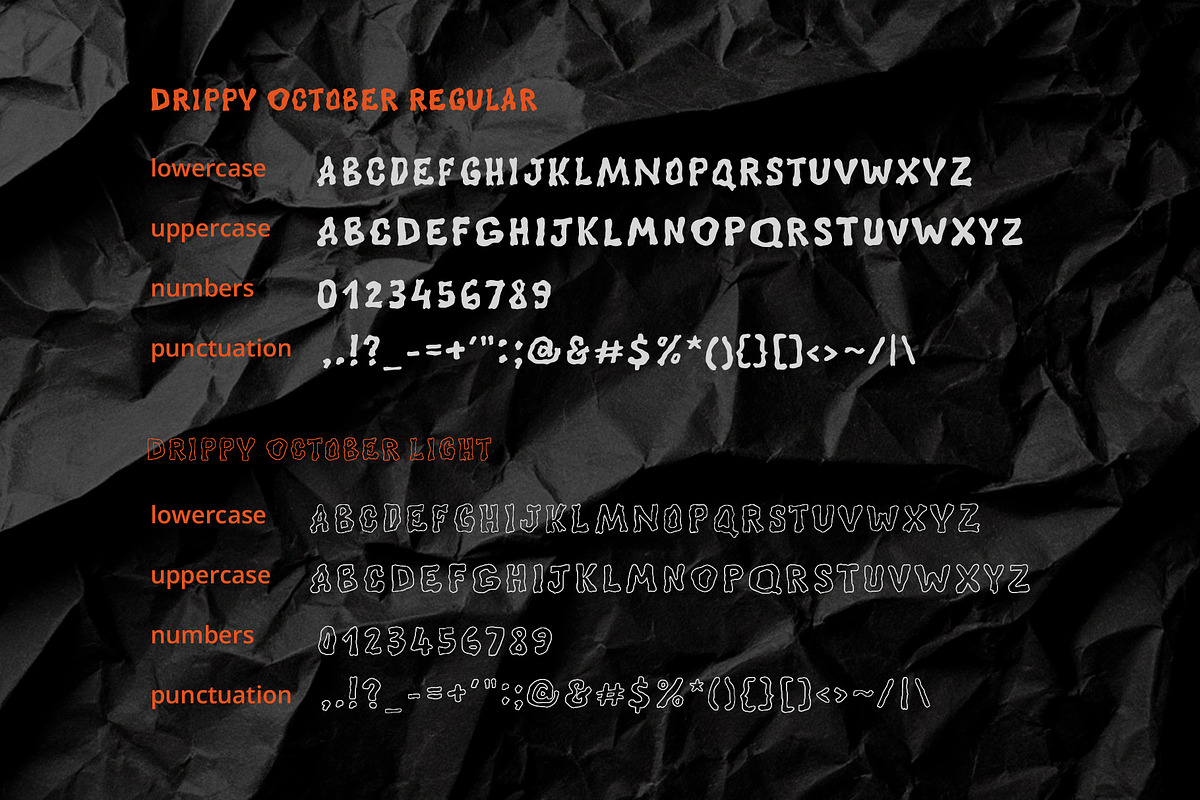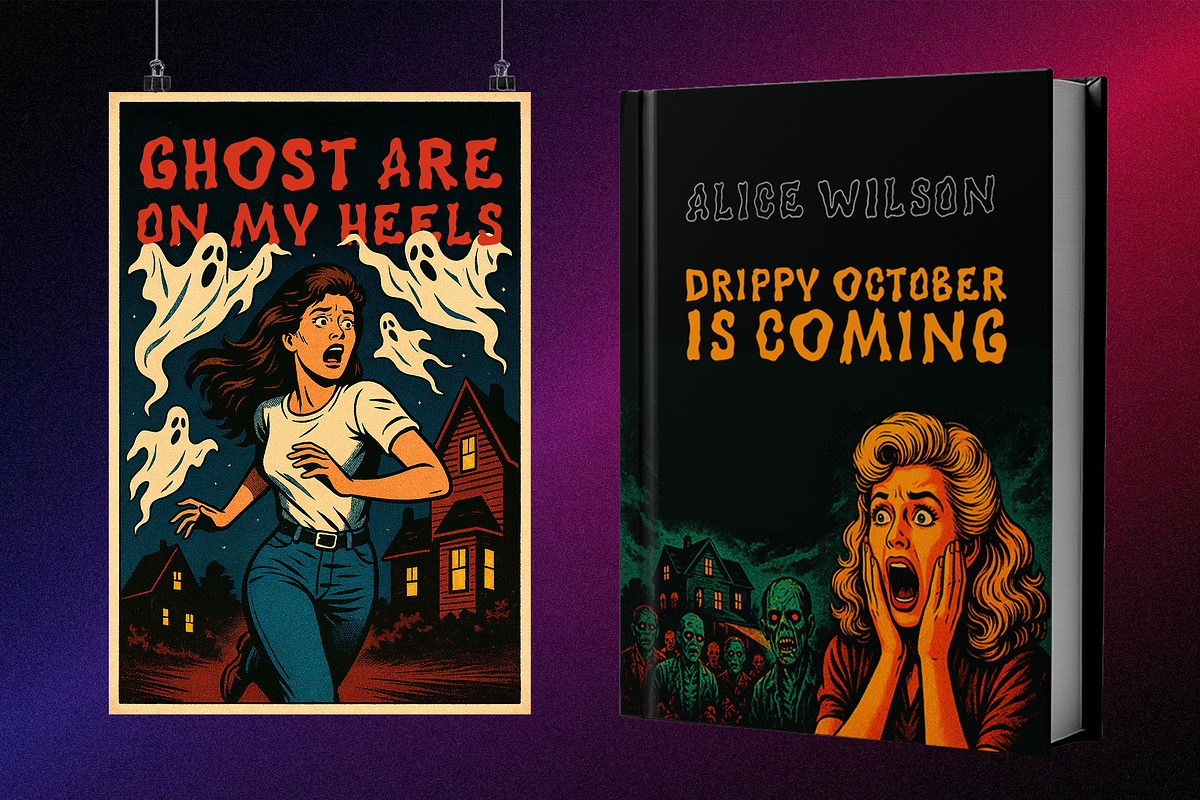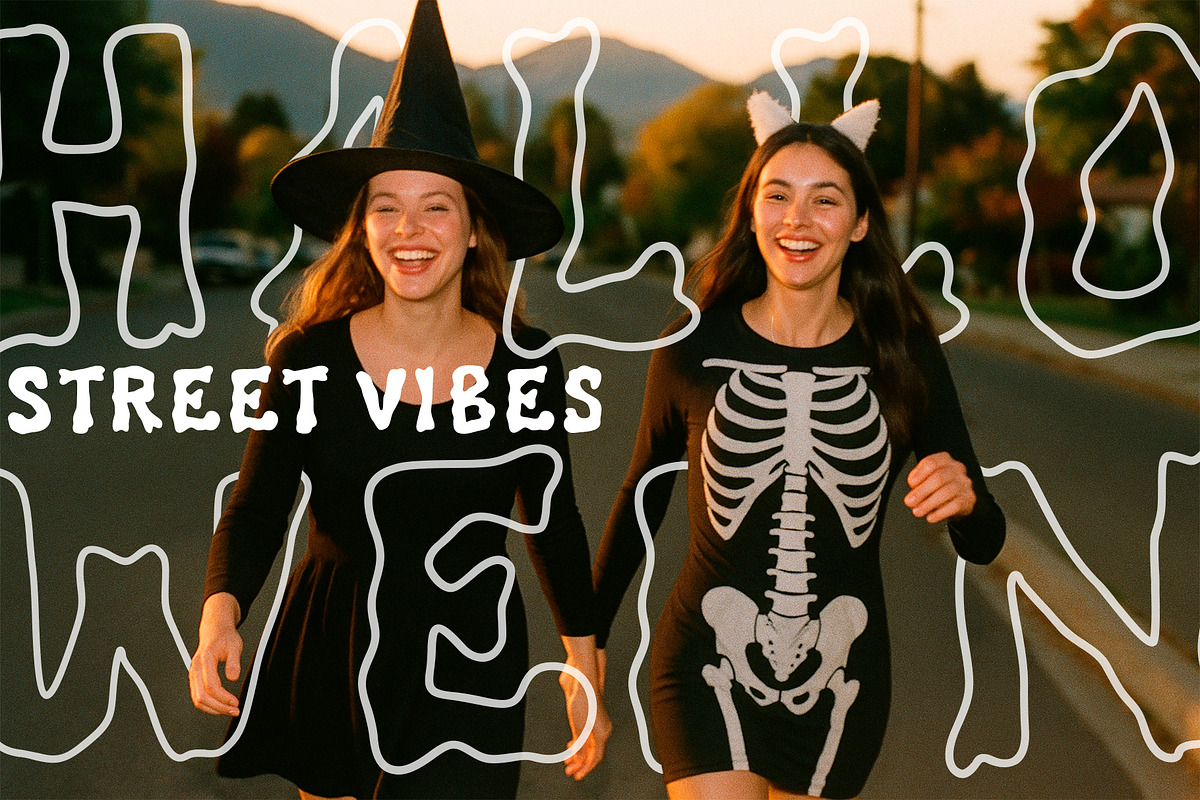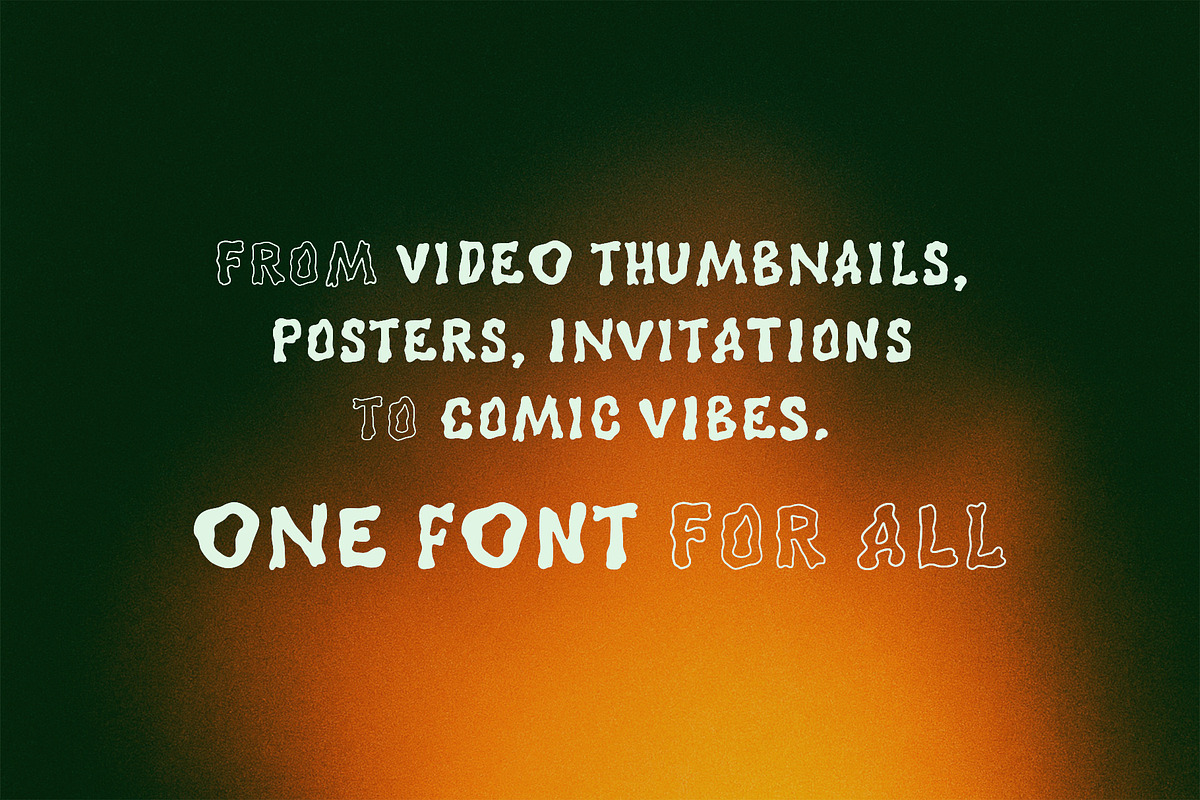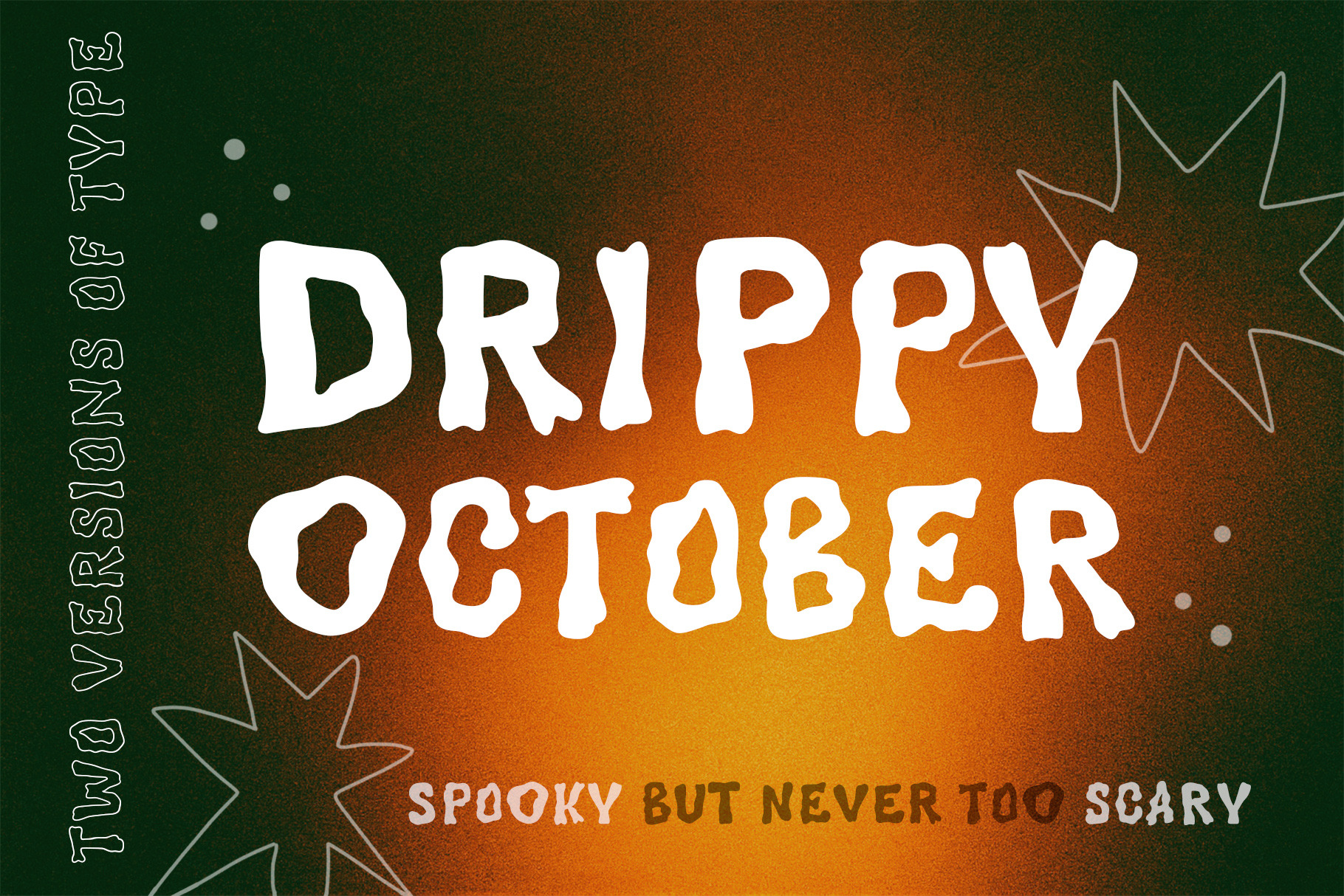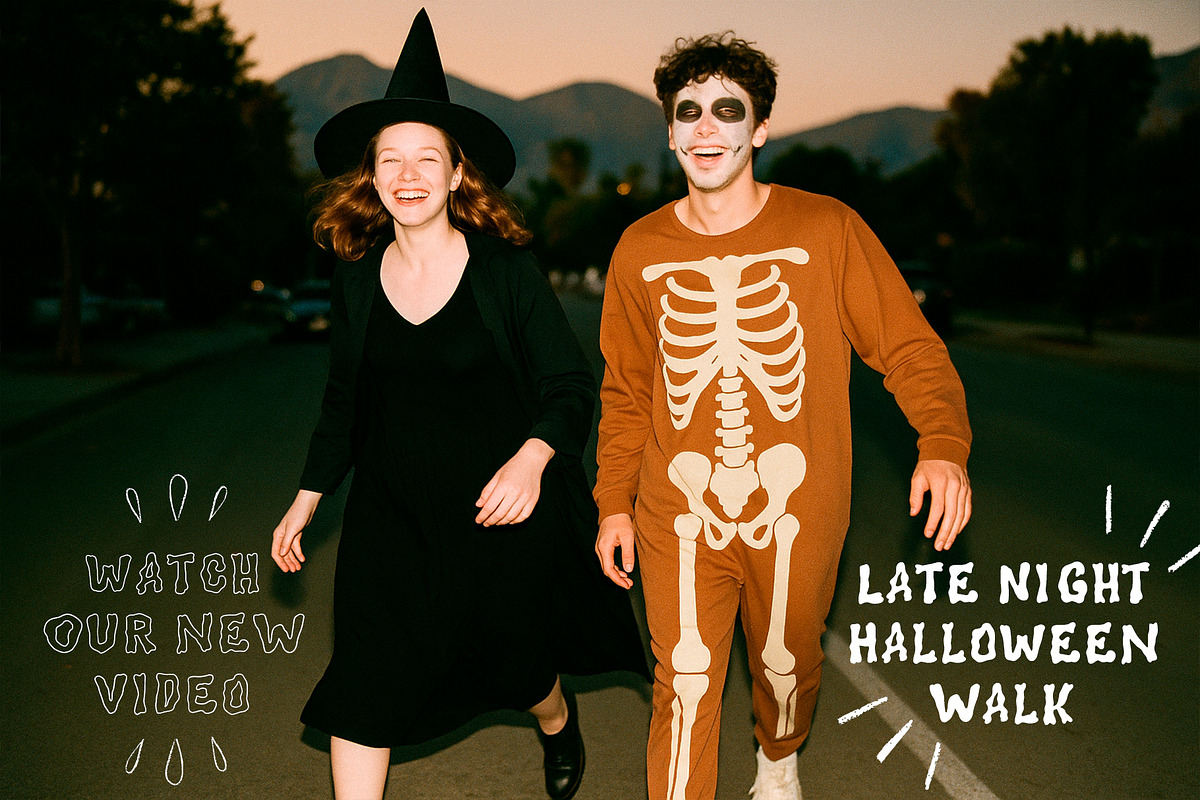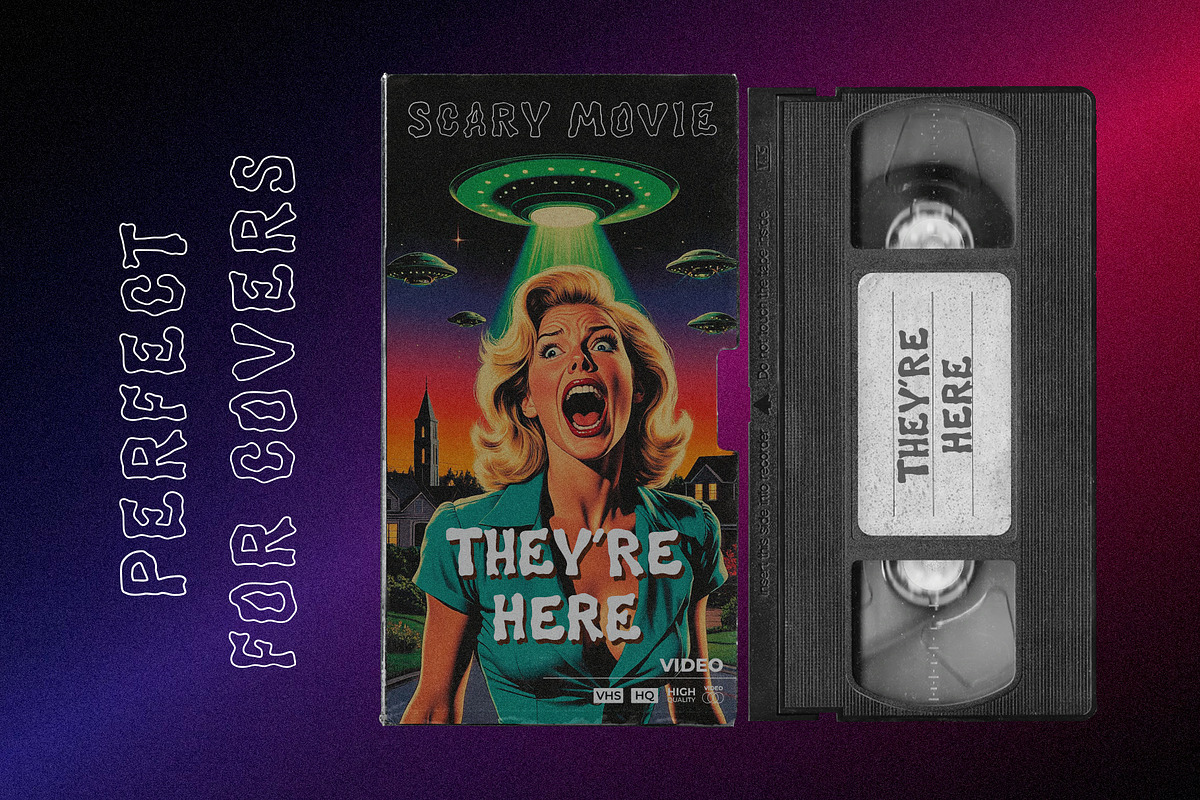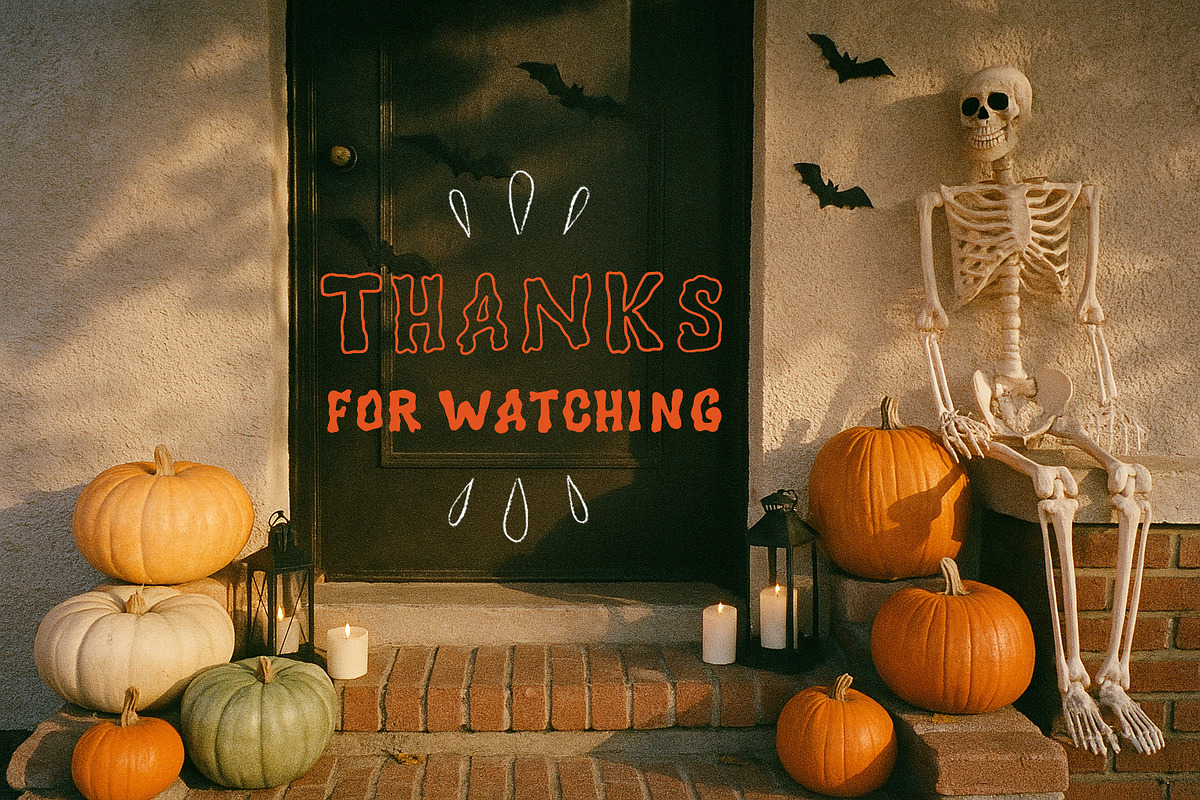
Drippy October Font
Spooky yet Playful — Perfect for Halloween & Beyond Meet Drippy October font, a bold hand-drawn display typeface with quirky edges and organic shapes. Inspired by the eerie charm of Halloween nights, this font adds a spooky but fun touch to any project.
Whether you’re creating Halloween party invitations, movie titles, YouTube covers, music album artwork, or comic book graphics, this typeface brings personality and drama to your design.
- Halloween posters & event flyers
- Spooky YouTube thumbnails
- Comic books & zines
- Album covers & movie titles
- DIY crafts, stickers, and merch
Make your designs unforgettable withDrippy October Font — creepy, fun, and full of character!